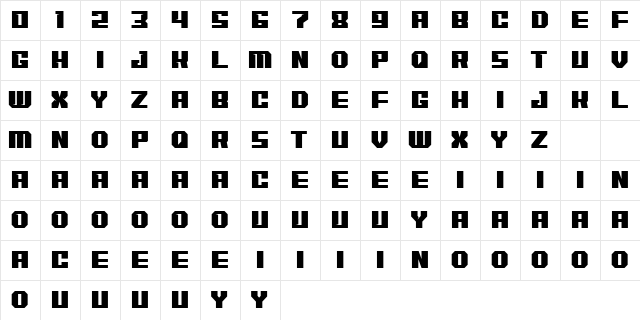
MONOCOQUE Regular
| Foundry | TKK Studio |
| Designer | Sahirul |
Design Context for MONOCOQUE Typeface
MONOCOQUE uses fixed-width spacing throughout, giving it the structured, systematic character associated with coding environments and technical documentation.